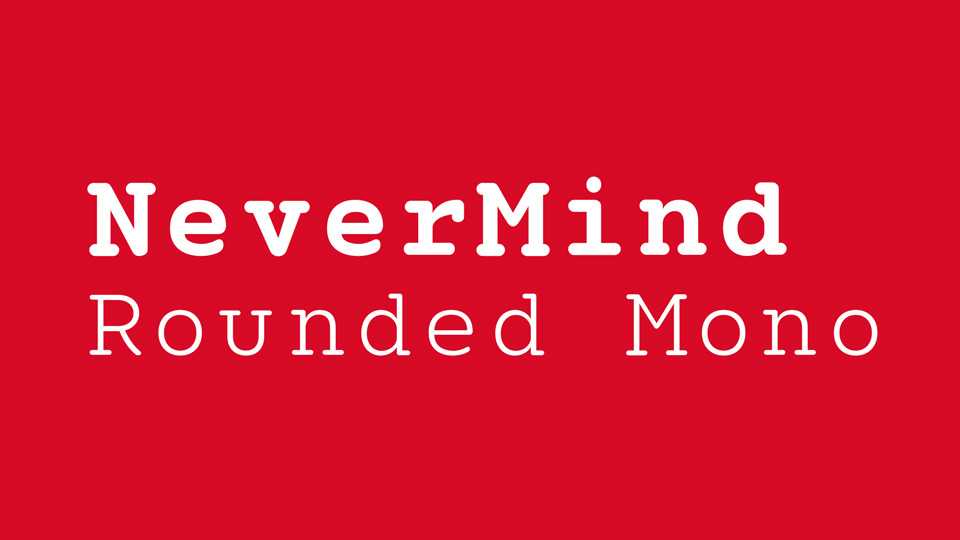
Download Nevermind Rounded Mono font, a monospaced typeface that seamlessly merges geometric structure and soft curves. Modern and friendly, it can be used for all types of communication.
Designer: XMind Ltd.